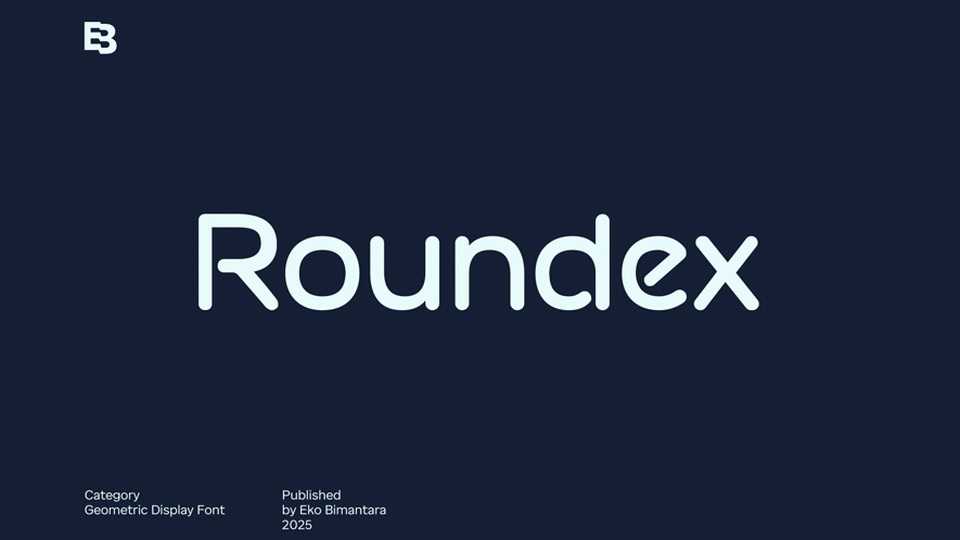
Download Roundex font, a clean and modern geometric display typeface defined by its soft curves and balanced proportions. Its rounded terminals and precise letterforms create a friendly, approachable character while maintaining a sense of technical clarity.